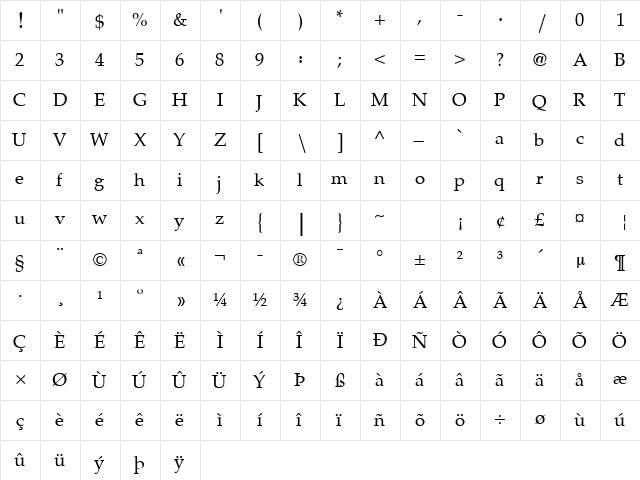
ASVCodar LT Light
| Foundry | Linotype GmbH |
| Designer | Ahmed Lakhdar-Ghazal |
Design Context for ASVCodar LT Typeface
ASVCodar LT offers clean, dependable letterforms without strong stylistic allegiance, making it a practical choice for designers who need flexibility. The delicate stroke weight brings airiness and refinement to layouts.